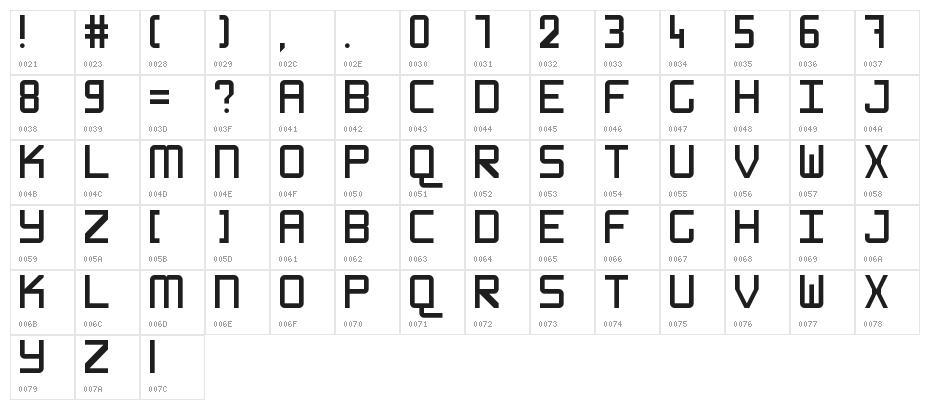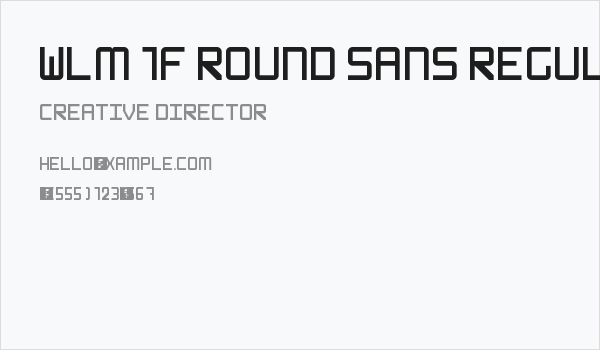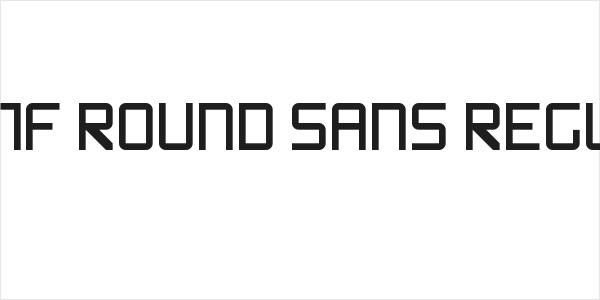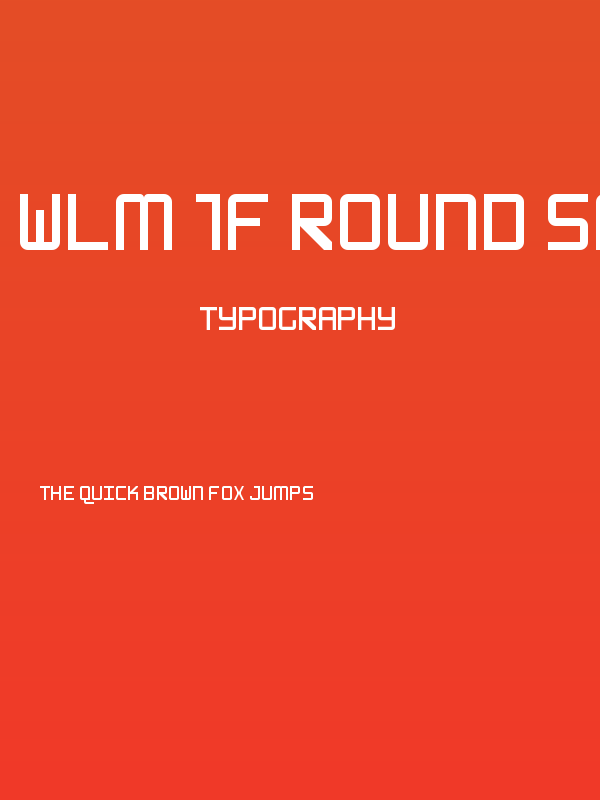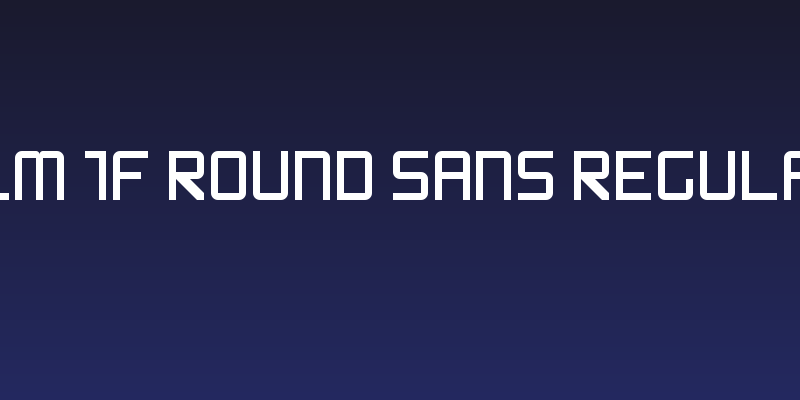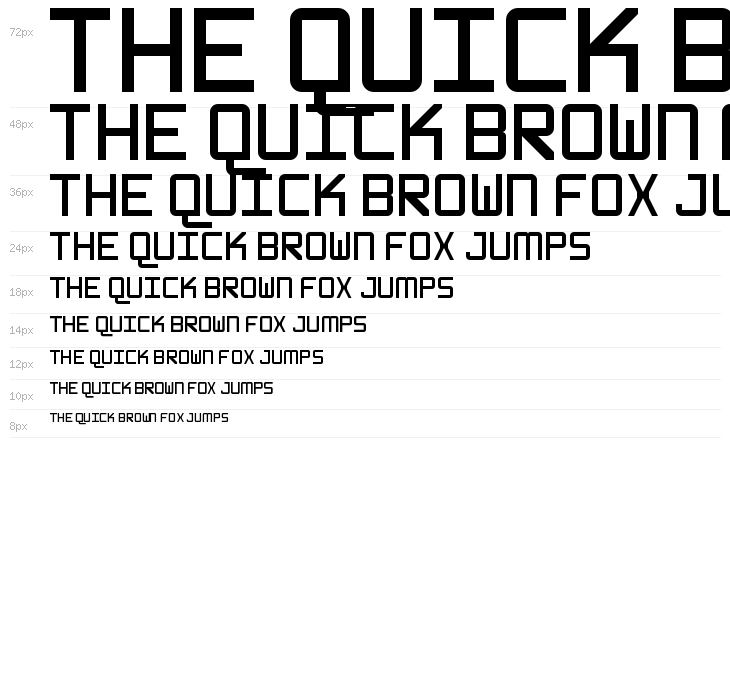
WLM 1F Round Sans Regular Font
WLM 1F Round Sans Regular Description
This font features a modern, geometric design with rounded edges, giving it a sleek and contemporary appearance. The characters are uniformly structured, maintaining a consistent height and width, which contributes to its clean and orderly look. The rounded corners soften the overall aesthetic, making it approachable and friendly. The font is highly legible, with clear distinctions between each character, making it suitable for various applications. Its uniform stroke weight and balanced proportions ensure readability across different sizes and contexts.
Proposed ProjectsIdeal for tech branding, modern web design, app interfaces, and signage.